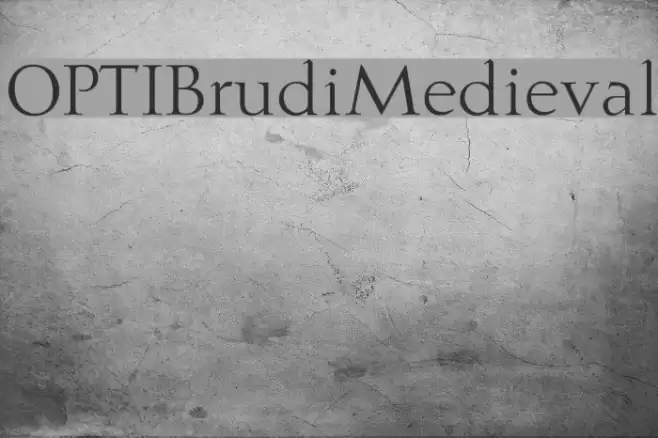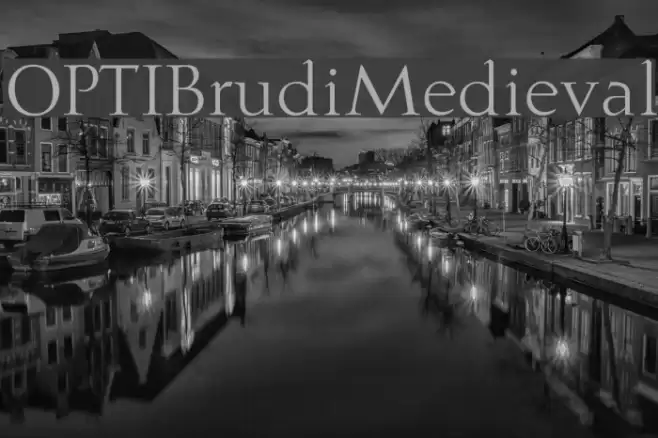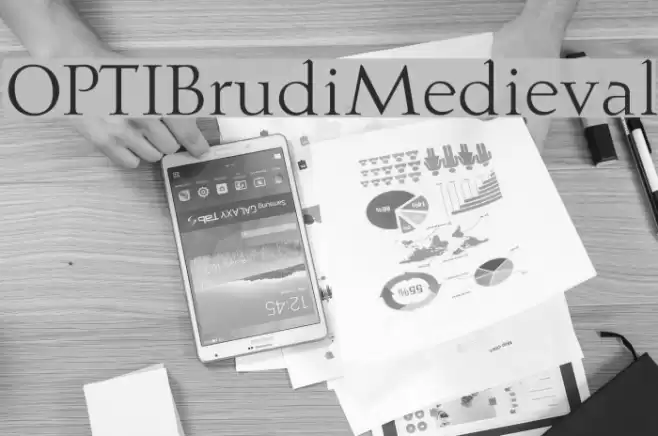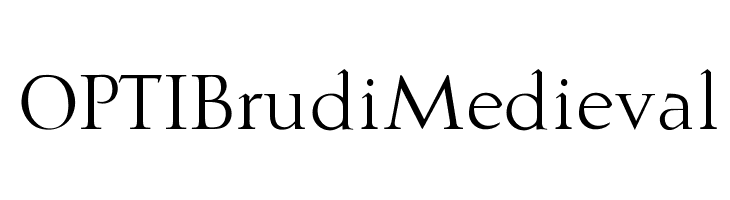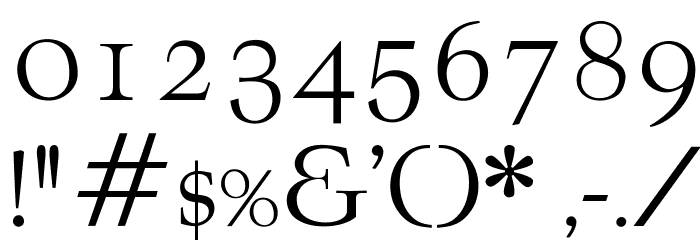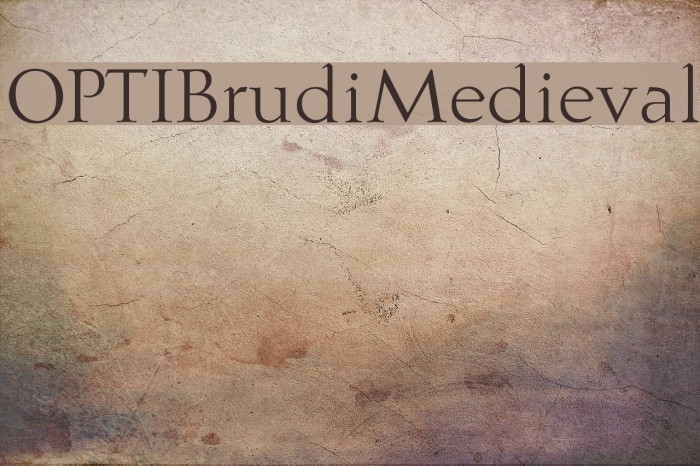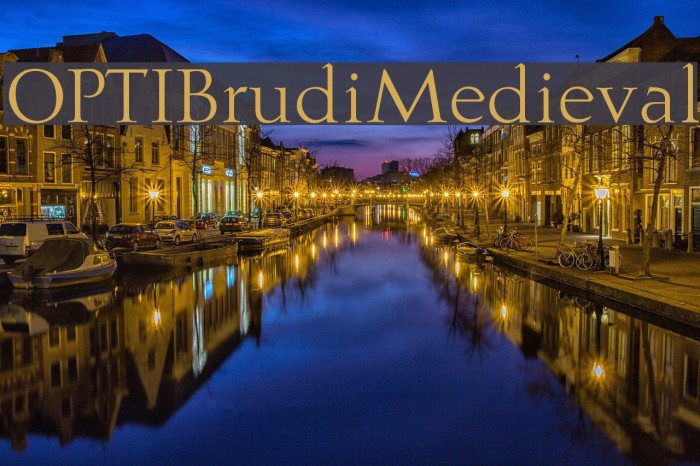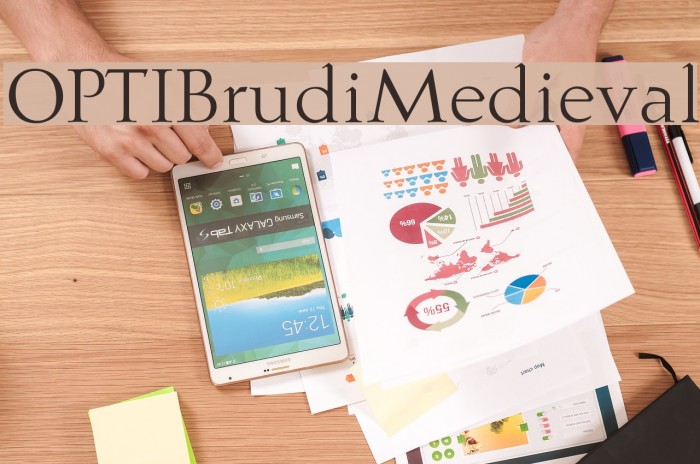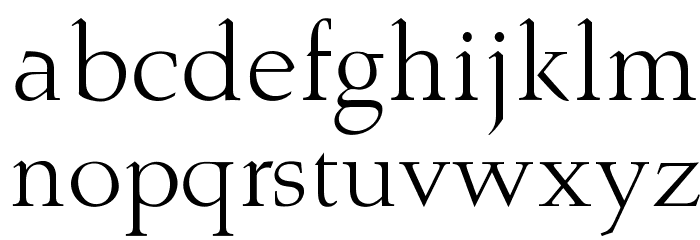
OPTIBrudiMedieval
This font exudes a classic and elegant style with its serif design, characterized by sharp, pointed serifs and a balanced contrast between thick and thin strokes. The uppercase letters are stately and well-proportioned, while the lowercase letters maintain a graceful flow with slightly rounded forms. The numerals are distinct and clear, complementing the overall sophisticated appearance. Special characters are designed with attention to detail, enhancing the font's versatility. This typeface is reminiscent of medieval script, offering a timeless and refined aesthetic suitable for a variety of applications.
A classic serif font with elegant, pointed serifs and balanced stroke contrast.
- Proposed Projects: Ideal for book covers, historical documents, formal invitations, and branding that requires a touch of elegance and tradition.
- Category: Serif
- Overall Style: Classic